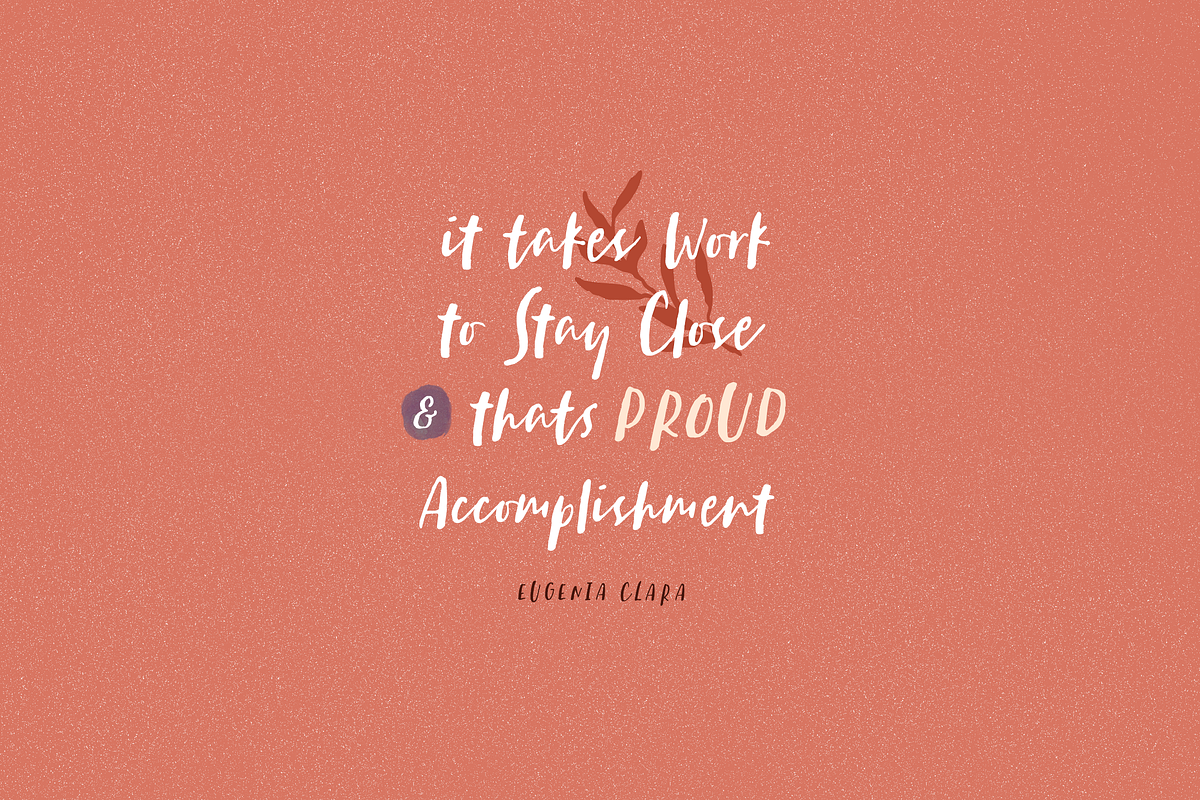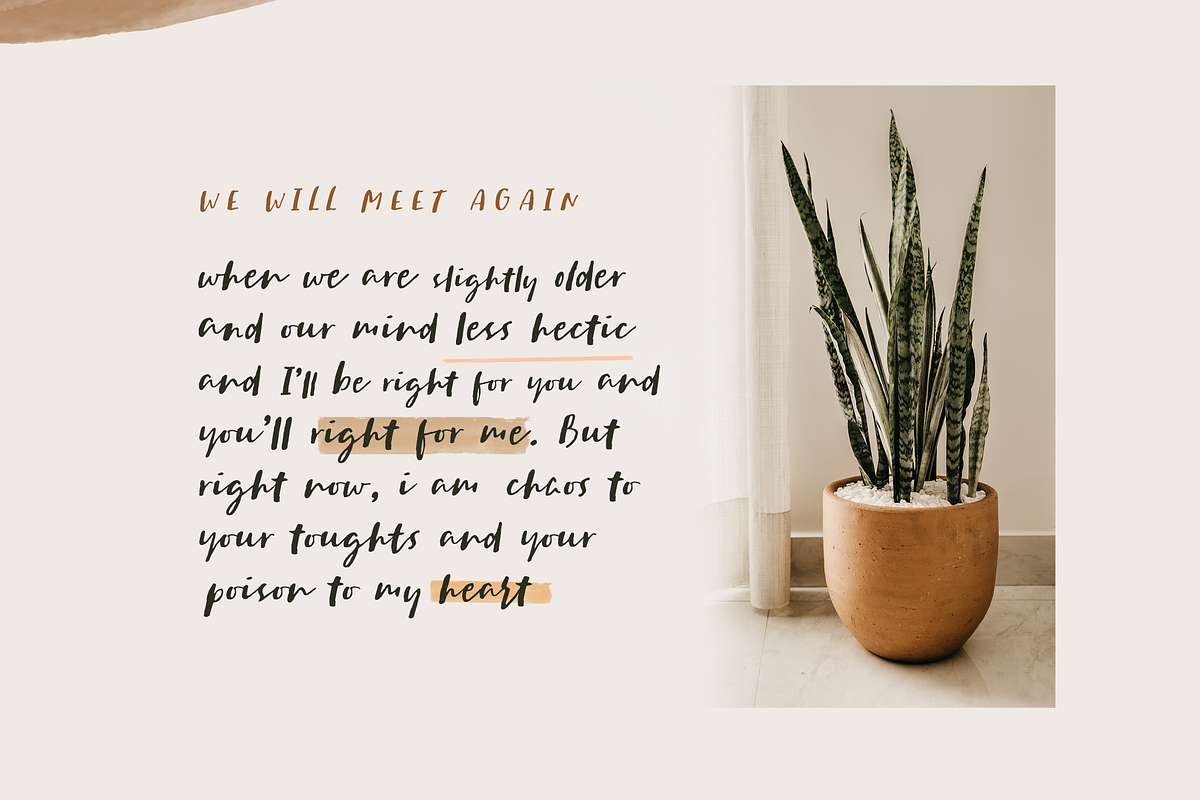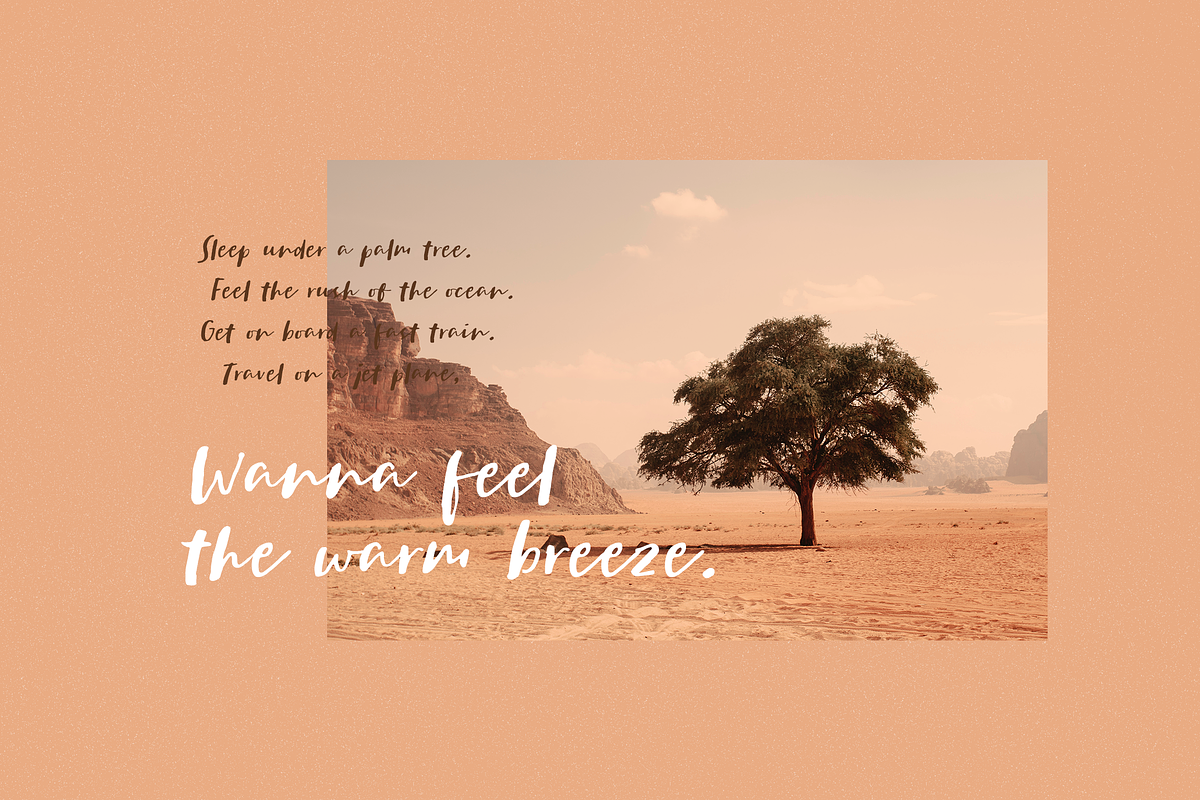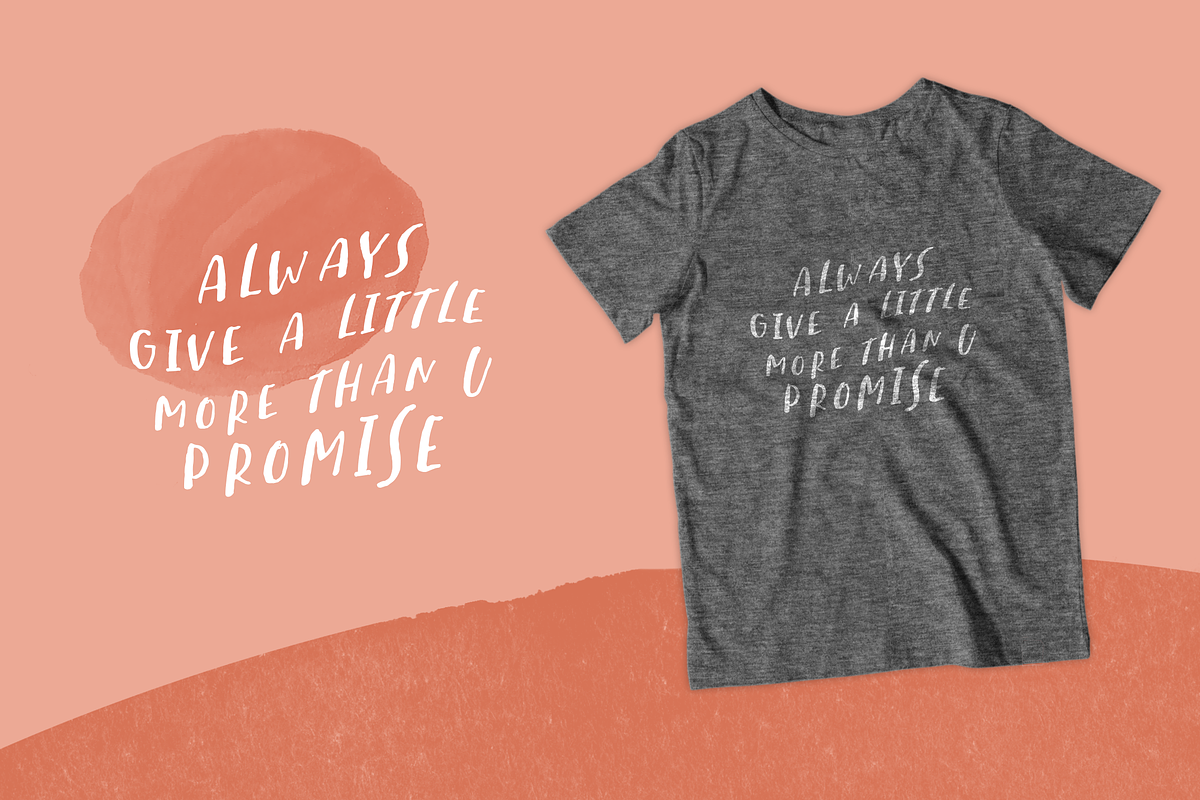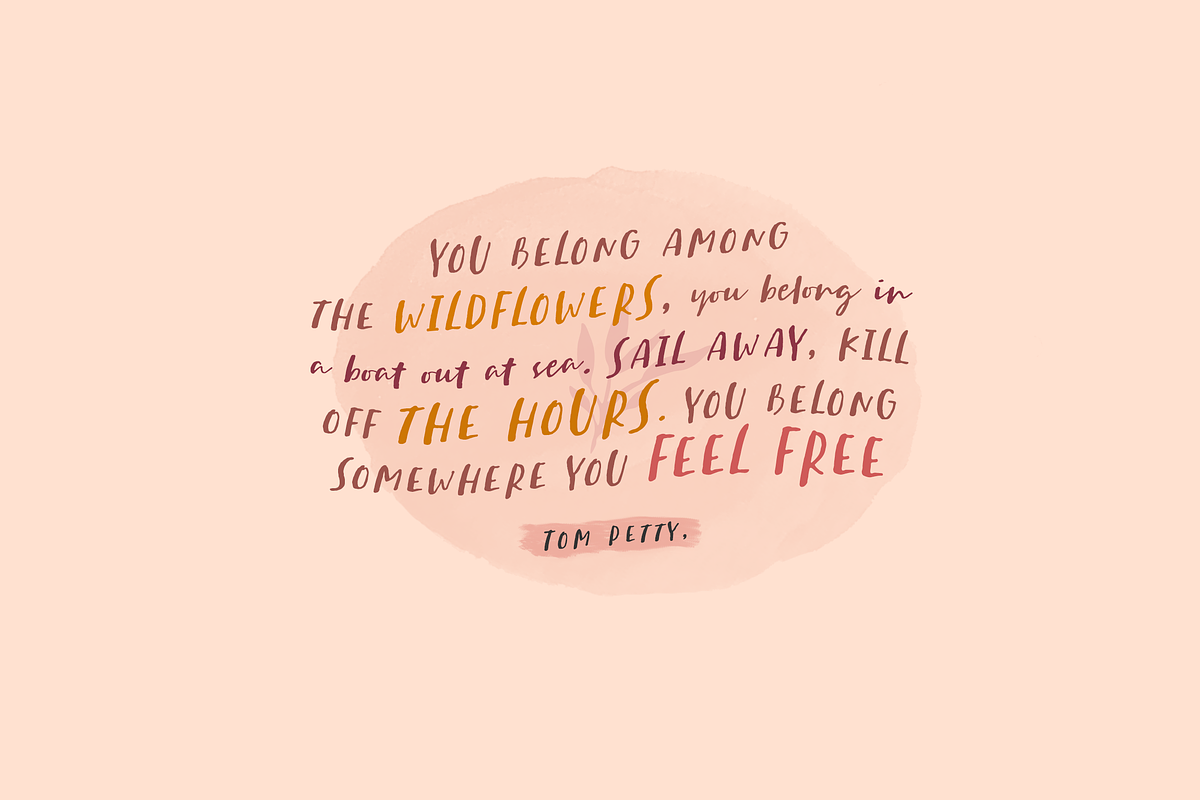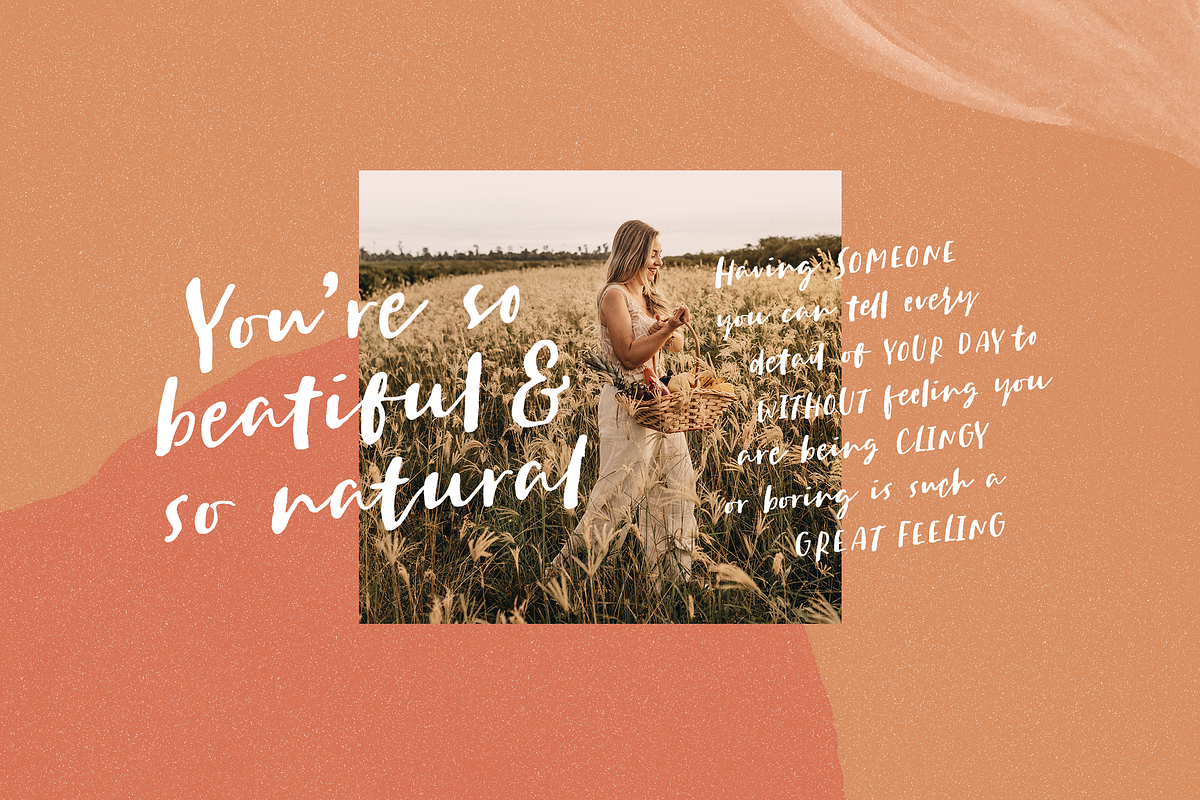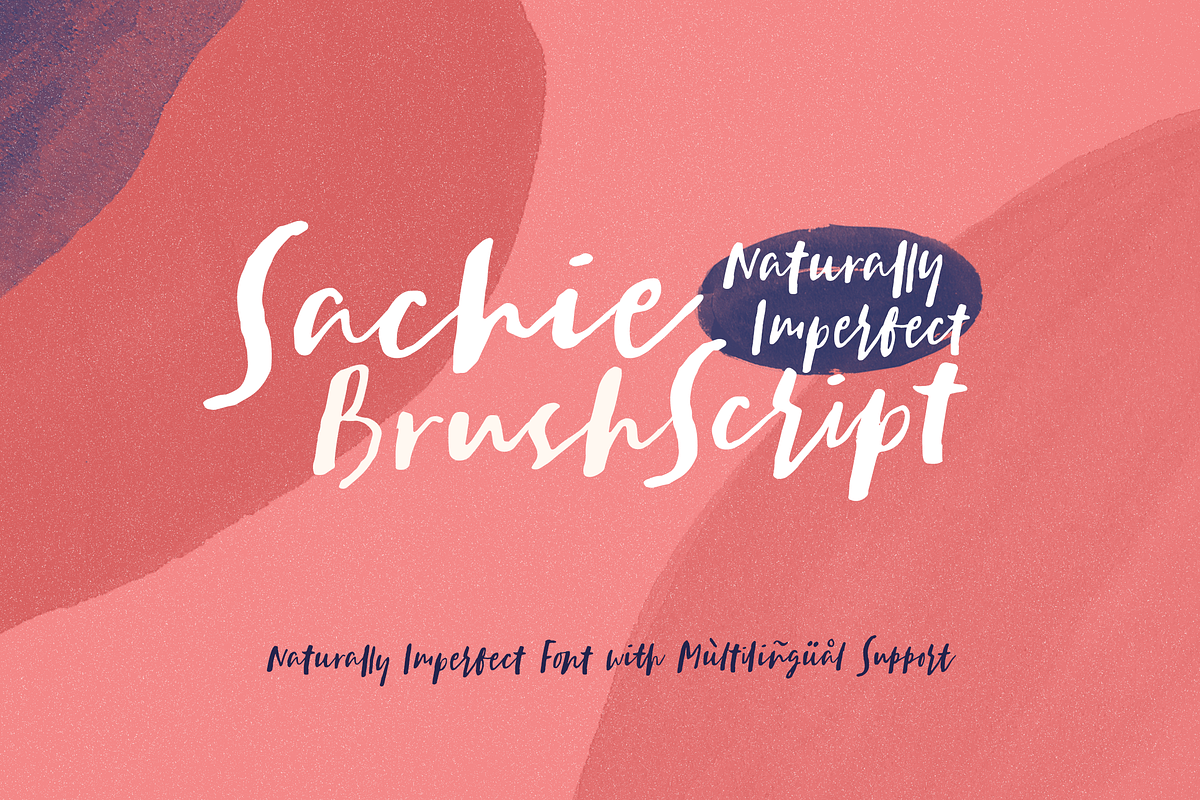
Sachie Script Font
Thanks for checking out Sachie Script, an artsy handwritten font with a slightly blooming baseline and naturally imperfect characters, allowing you to create awesome handmade typography design. Ranging from Instagram posts and stories, t-shirt design, fun-yet packaging design and more.
Why Sachie Script Font is worth a look
Sachie Script Font by Get Studio fits naturally into Branding, posters, packaging, typography.